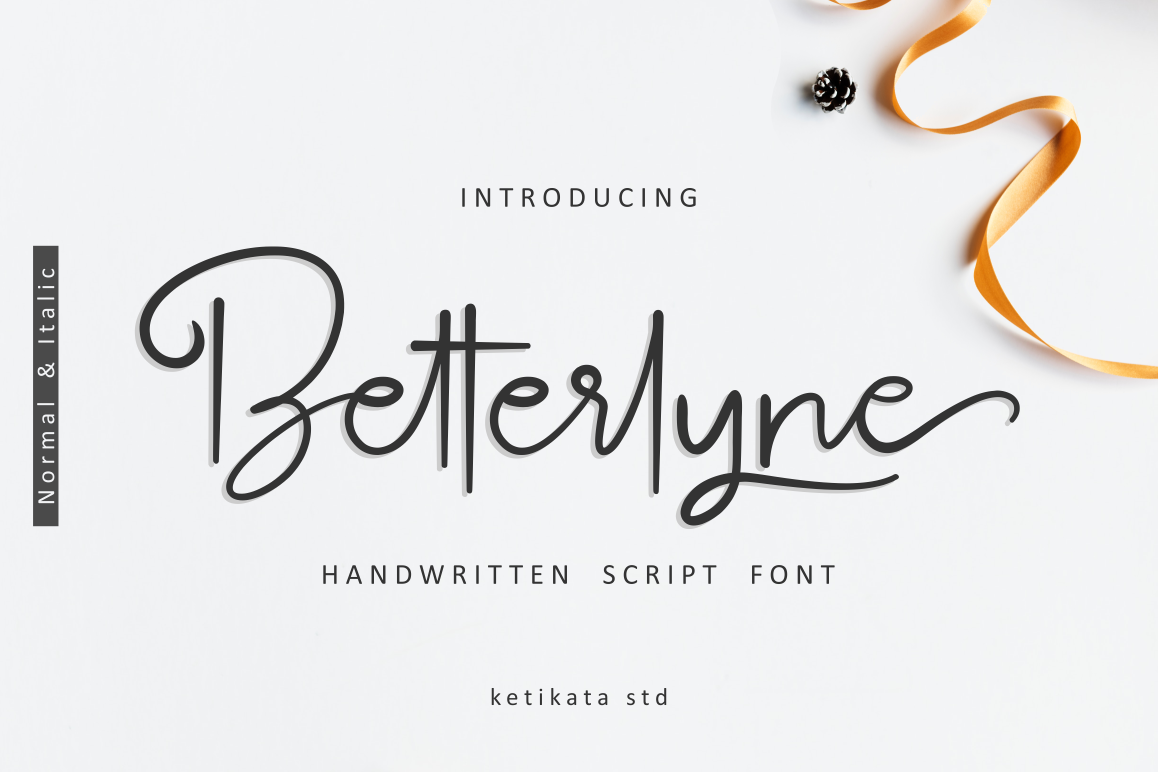
Betterlyne Handwritten Script
Meet our new font, Betterlyne!
Betterlyne is a modern and elegant font with a lot of stylistic alternates for your beautiful project.
We made this font carefully so that each letter could be connected well and elegantly either using alternate or not. with start and ending swash, and middle swash for some letters, this is very easy to use, just rely on your creativity !
This font is looks good to use it for Logotype, Name Tag, Short Quotes, Wedding Invitation Design, Greeting Card, Business Card, and many more Design Project.This font was impressed sweet, feminine and elegant.
• Ligature & alternates
• Standard Uppercase and Lowercase Alphabet
• Numbers and Punctuation
• Stylistic Set
• Open Type Features
• Multilingual support AÀÁÂÃÄÅCÇDEÈÉÊËIÌÍÎÏNÑOØÒÓÔÕÖUÙÜÚÛYÝŸ?Ÿ